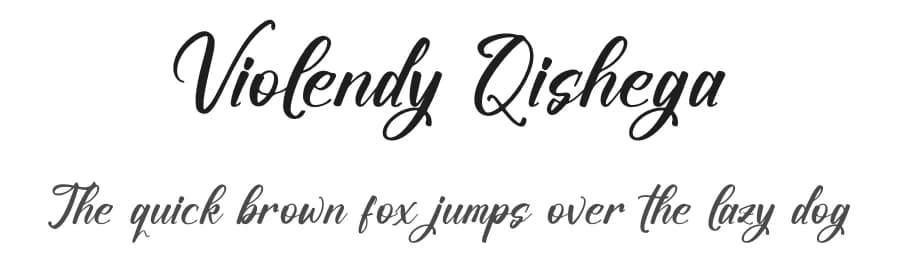
About Violendy Qishega Font
Violendy Qishega Font is a script font that shines as a display or heading face. Pair it with a clean sans-serif or serif font for body text β the contrast creates a clear hierarchy while the two styles stay balanced and easy to read.
Violendy Qishega Font